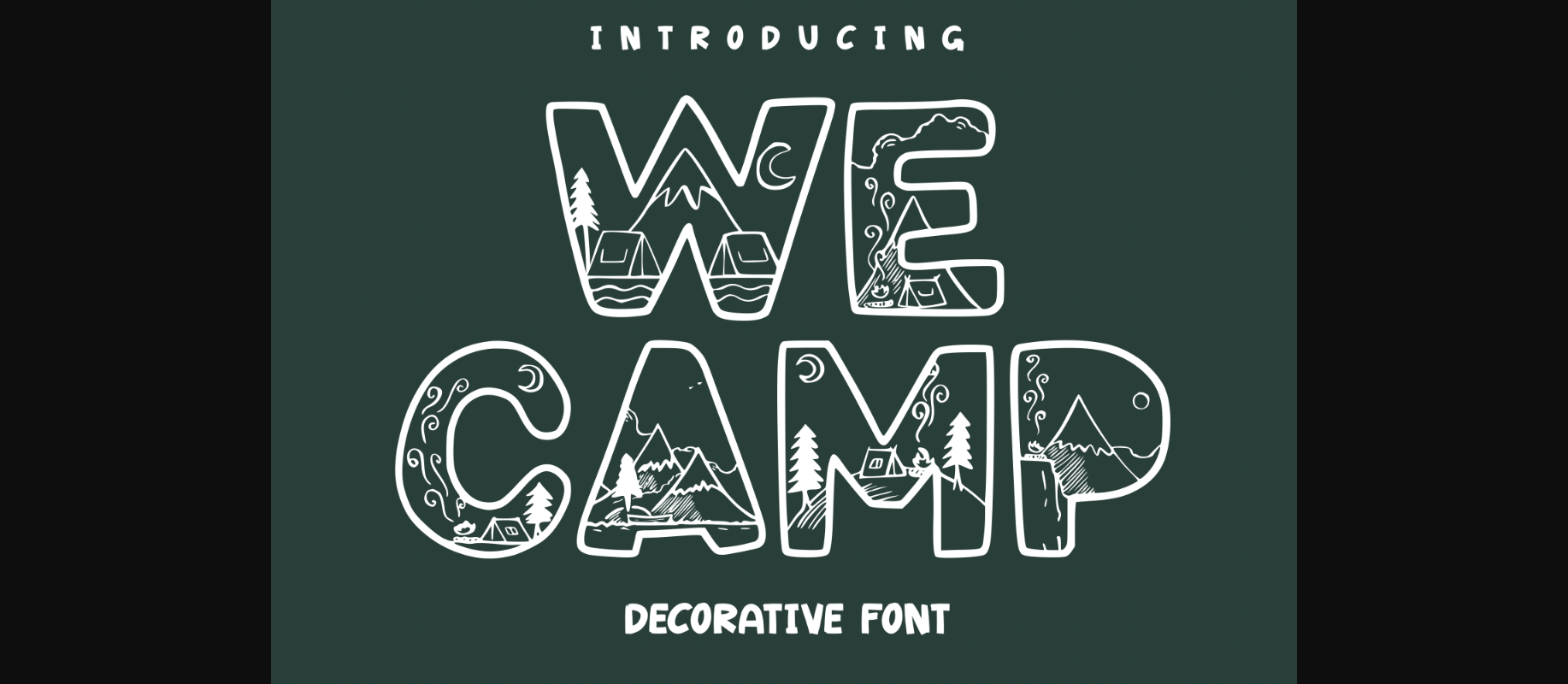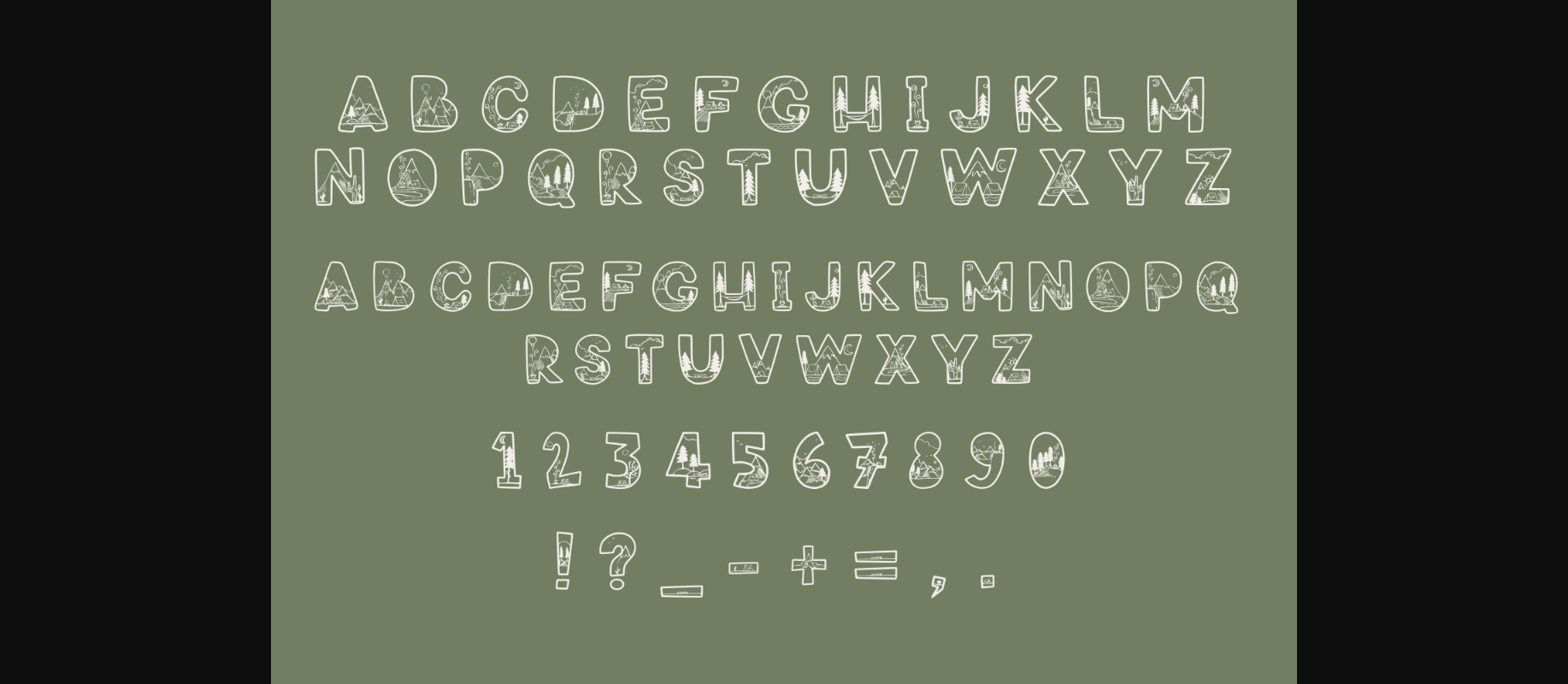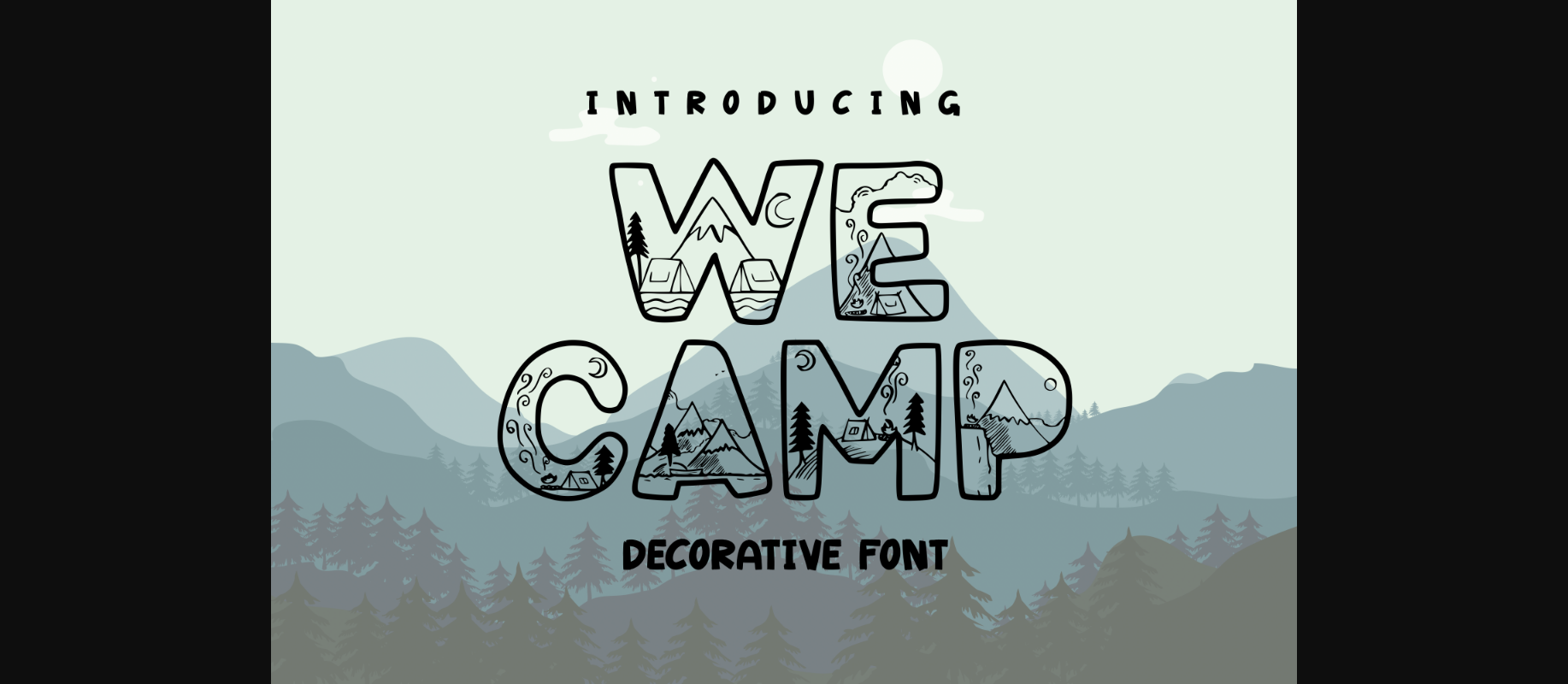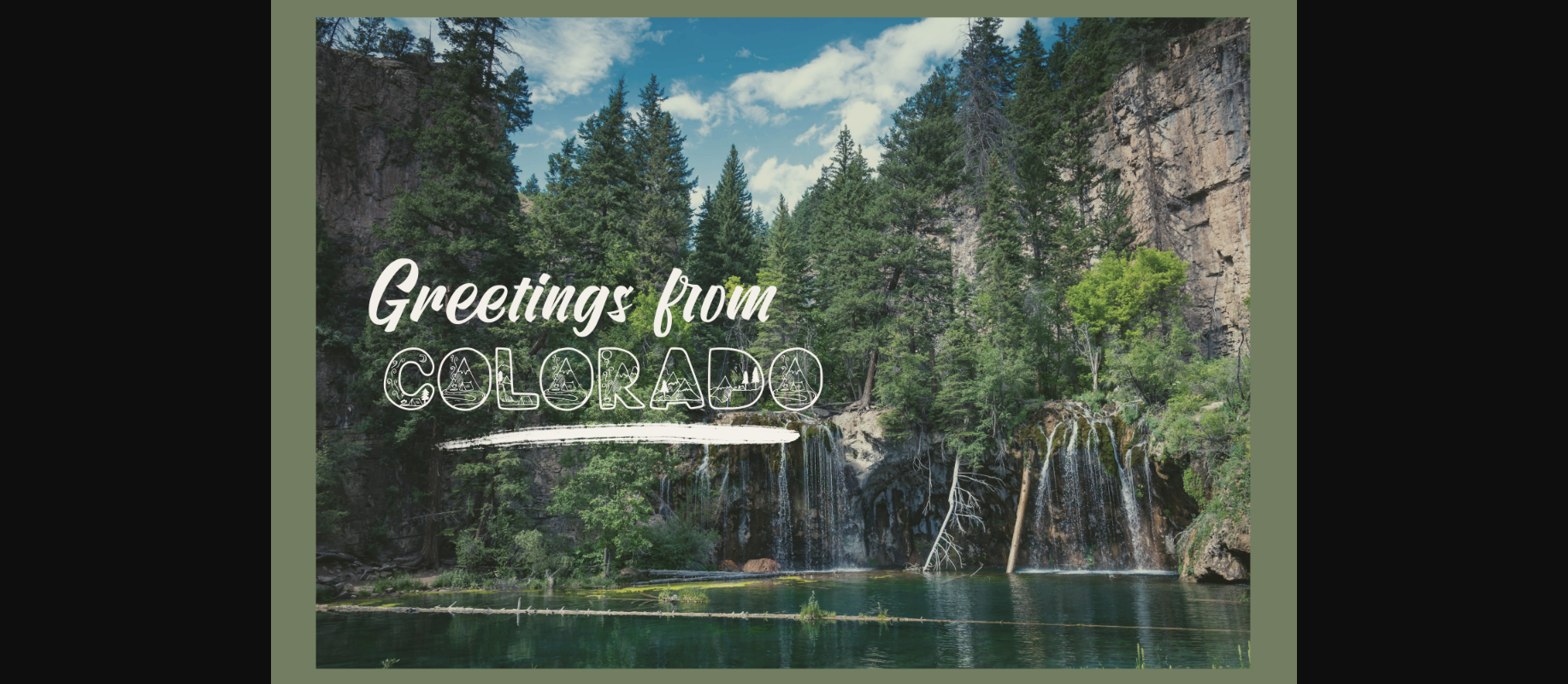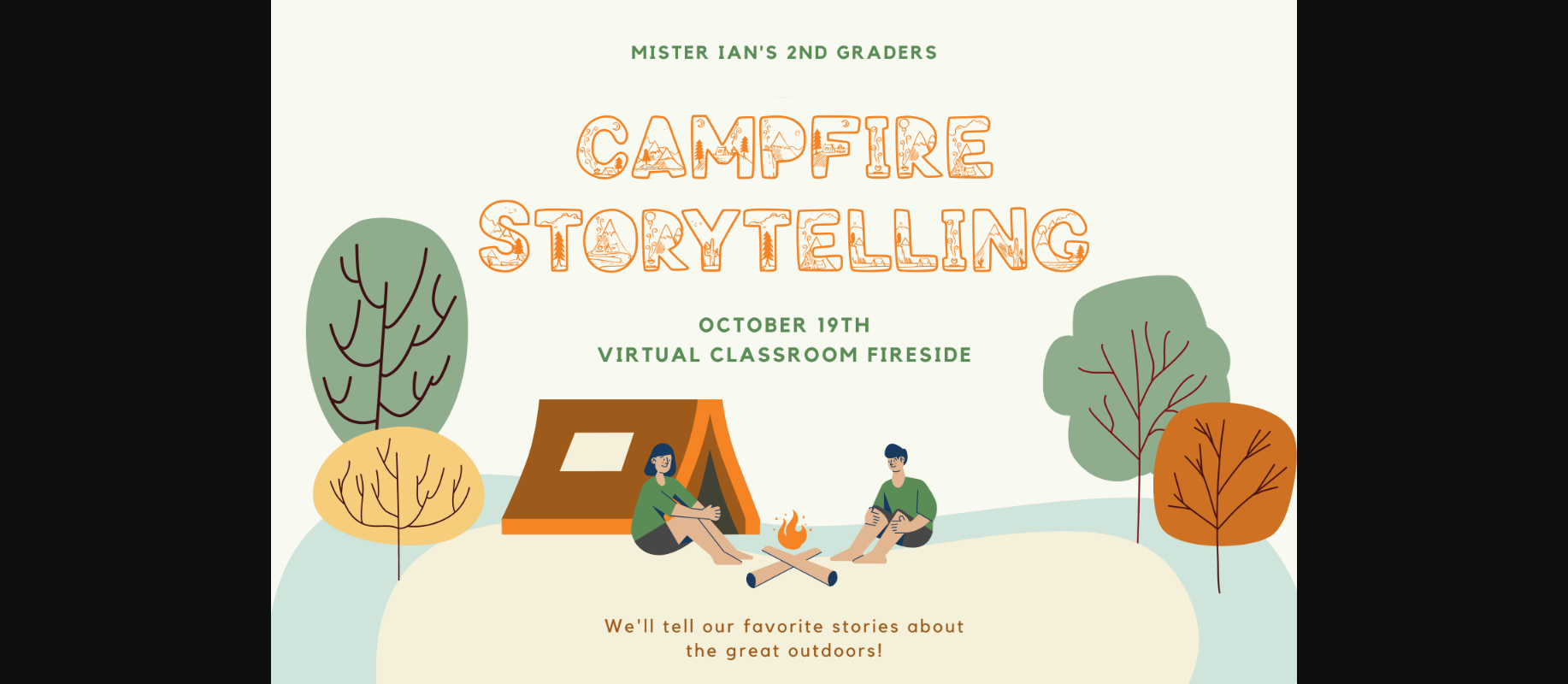
We Camp Font
About We Camp Font
We Camp is a cool, hippie and relaxed decorative font. Add it to each of your favorite designs related to travels and vacation in general and you will love the outcome.